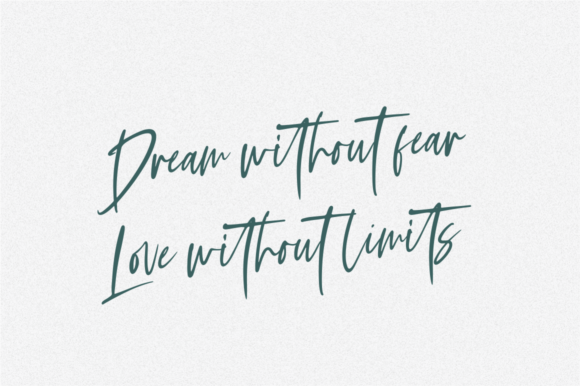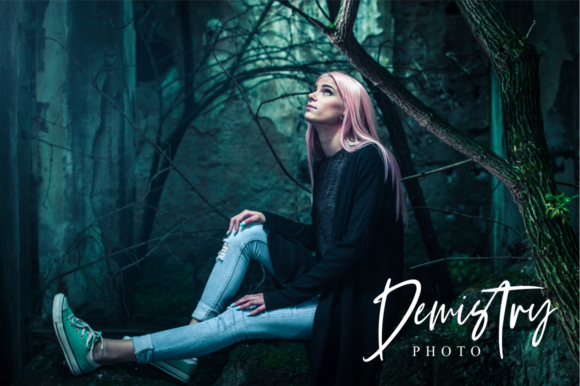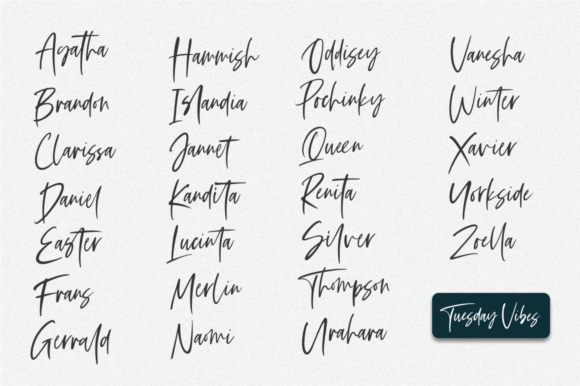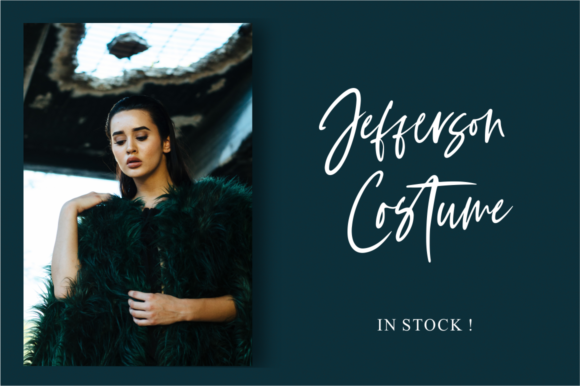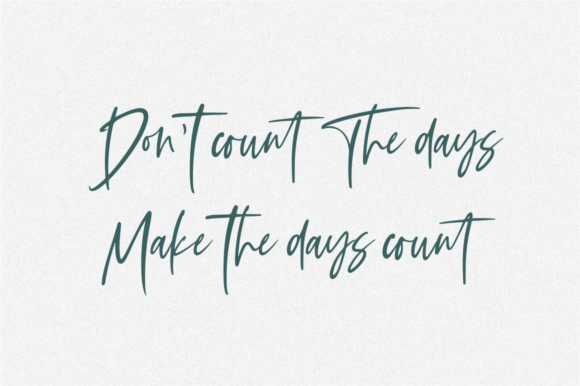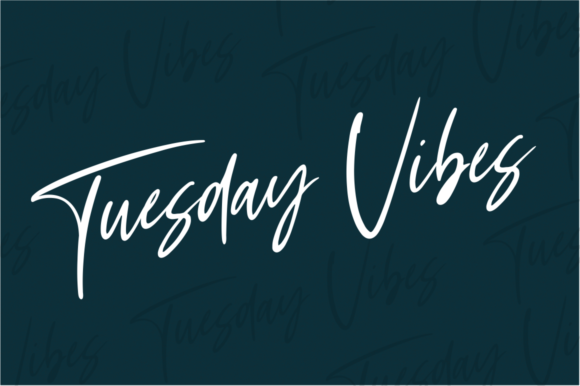
Tuesday Vibes Font
About Tuesday Vibes Font
The Tuesday Vibes is a modern and fresh hand-lettered font. It has a natural and modern style which can be used for logos, branding, invitations, stationery, wedding designs, social media posts, advertisements, and much more!